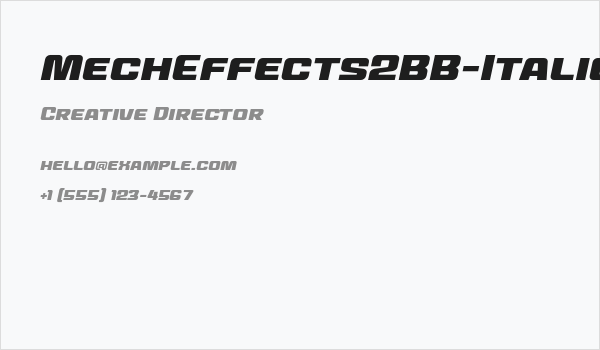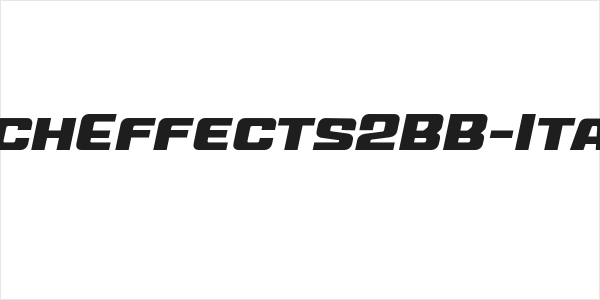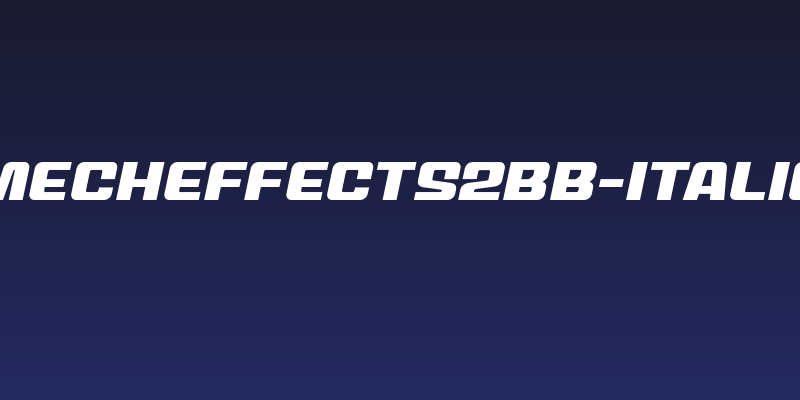
MechEffects2BB-Italic Font
MechEffects2BB-Italic Description
This font exhibits a bold and dynamic style with a strong geometric influence. The characters are italicized, giving them a forward-leaning appearance that suggests motion and energy. The strokes are thick and consistent, providing a robust and impactful presence. The design features sharp angles and clean lines, contributing to a modern and futuristic aesthetic. The uppercase and lowercase letters maintain a uniform width, enhancing readability while retaining a distinctive character. The numerals and special characters are crafted with the same attention to detail, ensuring a cohesive look across all elements.
Proposed ProjectsIdeal for projects that require a futuristic or tech-oriented theme, such as video game titles, tech branding, or sci-fi posters.